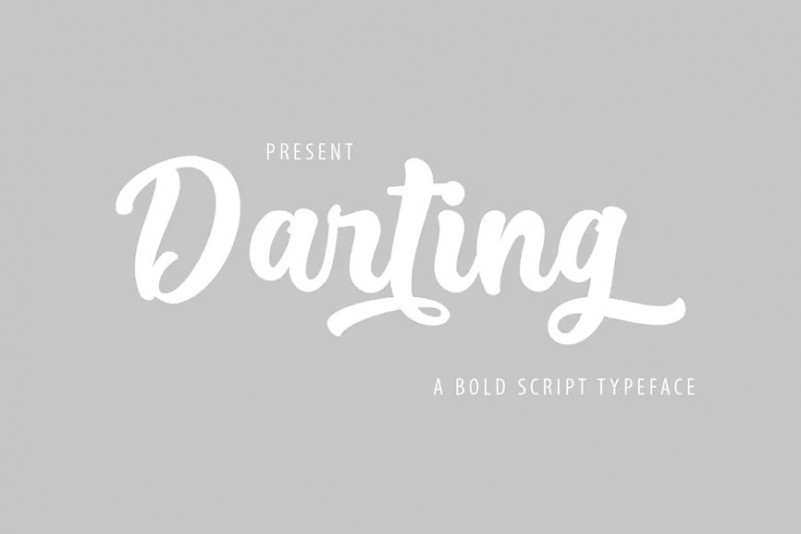
Darting Font
Darting handmade font perfect for any design projects, packaging, headline, poster, t-shirt/apparel, headers and anything else you need to create.
Darting handmade fonts includes a complete set of uppercase and lowercase letters, as well as multi-language support, numbers, punctuation, ligatures.